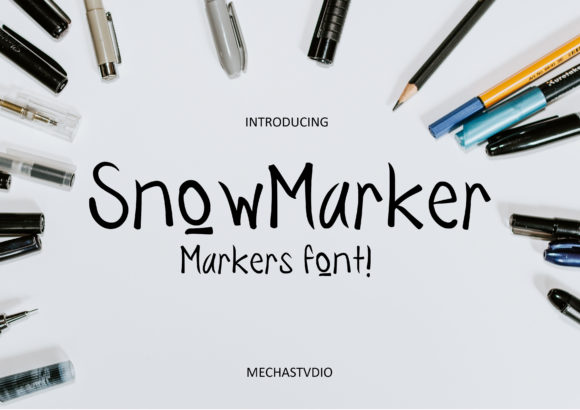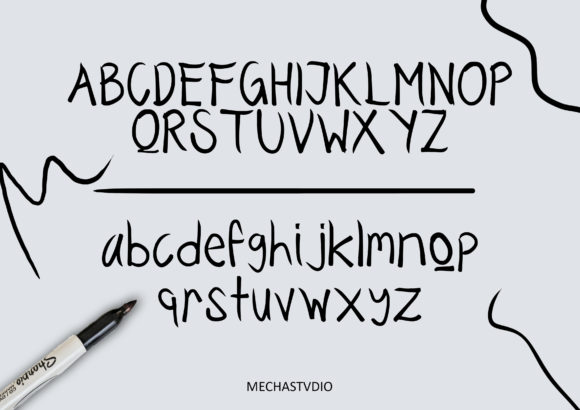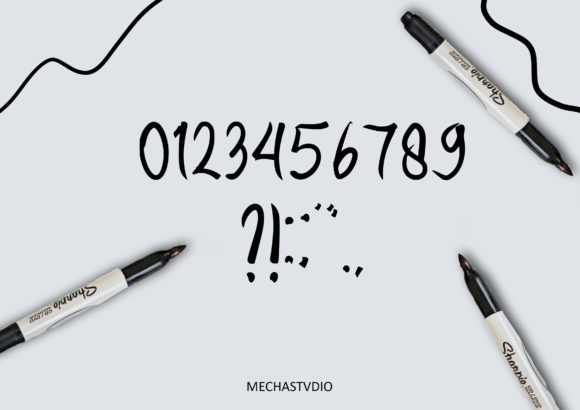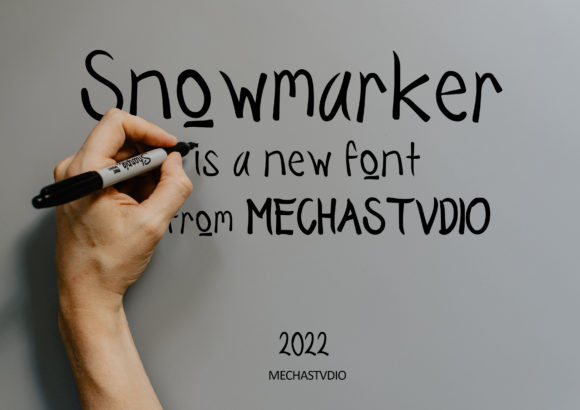
Snow Marker Font
About Snow Marker Font
Snow Marker is a contemporary and condensed script font that embodies a clean, thin, and smooth aesthetic. With its sleek and modern design, this font is poised to make a significant impact when incorporated into various design projects.
The clean and elegant strokes of Snow Marker lend themselves well to a wide range of applications. Whether you’re working on branding, logos, packaging, invitations, posters, or any other design endeavor, this font’s distinct style can elevate your creations and give them a fresh and trendy look.
The condensed nature of Snow Marker adds a sense of efficiency and compactness to your designs, making it a great choice when you want to convey information within limited space without sacrificing visual appeal.
Snow Marker’s smooth vibe and modern look make it suitable for both digital and print media. In digital contexts, such as websites, social media graphics, and digital ads, Snow Marker’s clean lines and condensed form can help capture attention and convey a sense of contemporary style.
In print materials, Snow Marker’s sleek and thin strokes create a refined and polished appearance. Whether used on product packaging, labels, or invitations, the font’s clean design can enhance the overall visual impact of the design.
The versatile nature of Snow Marker allows it to adapt to various design themes and concepts. Its clean and thin aesthetic can convey a sense of modernity, professionalism, and sophistication, making it a versatile choice for a wide range of projects.
In summary, Snow Marker is a modern and condensed script font that brings a clean, thin, and smooth vibe to your design projects. Its sleek design and versatility make it a compelling choice for creating visually appealing and impactful designs that resonate with a contemporary audience.